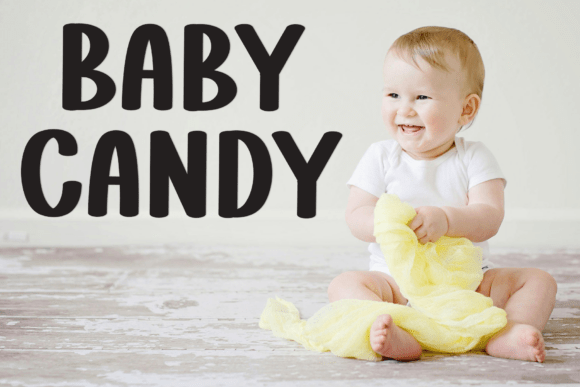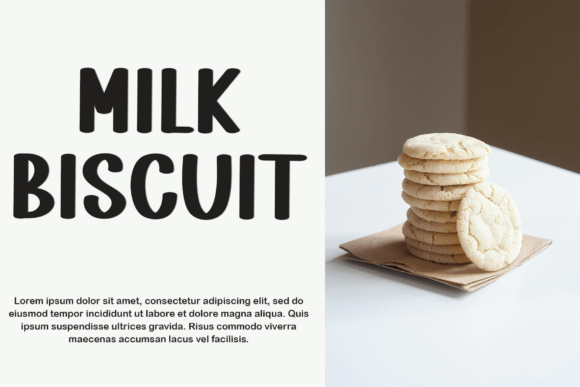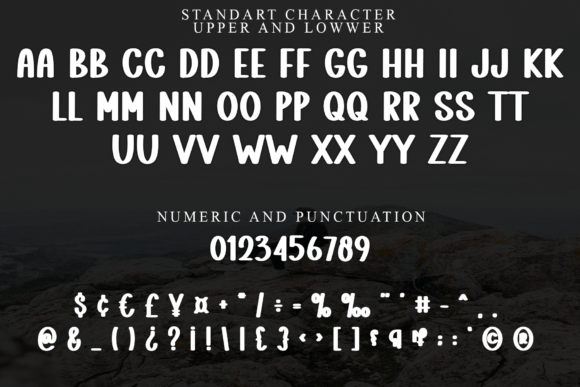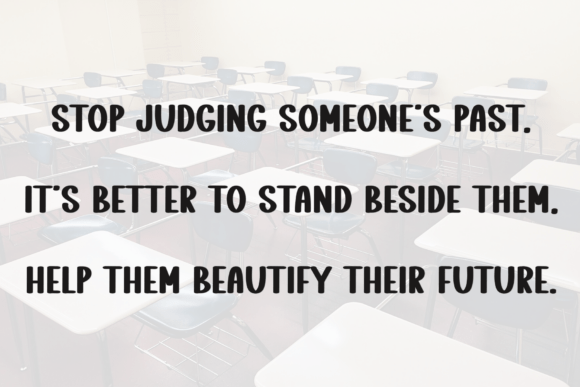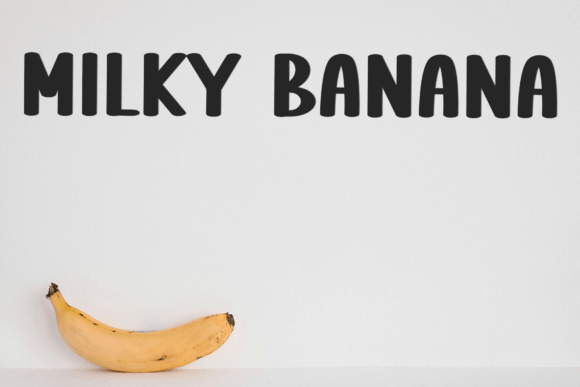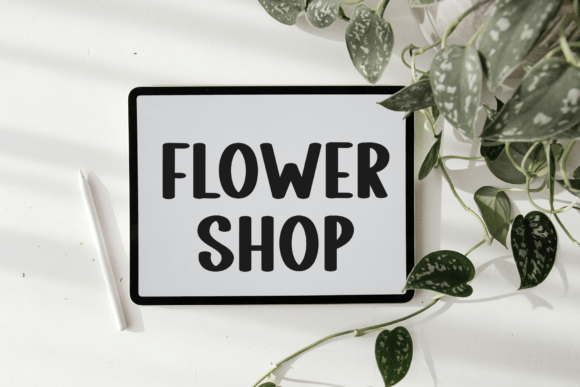
Introduction to Monday Lacation Font
As a designer, have you ever found yourself in a creative rut, struggling to find the perfect font to match your vision? I know I have. But one day, while browsing through a design resource website, I stumbled upon a charming font that changed everything. The Monday Lacation Font, with its playful and approachable feel, instantly captured my attention and sparked a wave of inspiration. Its hand-drawn aesthetic and rounded strokes transported me to a world of endless possibilities, where creativity knew no bounds.
With its ability to add a unique touch to any design, the Monday Lacation Font is a valuable resource for designers of all levels. Whether you’re working on a personal project, creating social media graphics, or designing invitations, this font is sure to bring a smile to your audience’s faces. And the best part? It’s available for free download, making it an accessible and high-quality addition to your design toolkit.
As a design enthusiast, I can attest to the importance of having a reliable and versatile font at your disposal. The Monday Lacation Font, with its transparent background and PUA Encoded glyphs, is the perfect companion for any creative project. So why settle for ordinary when you can have extraordinary? Get ready to unleash your creativity with the Monday Lacation Font!
Key Features of Monday Lacation Font
- Unique, modern font style with a transparent background, allowing for versatility in design applications.
- Perfect for use in logos, branding materials, and other creative projects where a modern, minimalist aesthetic is desired.
Honest Review: Monday Lacation Font
As a designer, I’m always on the lookout for high-quality design resources to elevate my creative projects. Recently, I stumbled upon the Monday Lacation Font, and I’m excited to share my thoughts on this free download.
- ✨ Clean and modern design aesthetic that’s perfect for minimalist layouts.
- ✨ High-quality vector files that can be scaled up or down without losing any detail.
- ✨ Transparent background option, making it easy to layer over images or use as a standalone element.
- ⚠️ Limited character set, which might be a concern for designers who need a wide range of characters.
- ⚠️ Not ideal for projects that require a lot of bold or condensed typography.
Overall, I’m impressed with the Monday Lacation Font. Its clean design and high-quality files make it a great addition to any designer’s toolkit. While it may have some limitations, I think it’s a fantastic choice for designers working on minimalist or modern creative projects.
Monday Lacation Font
The Monday Lacation Font is a versatile design resource ideal for creative projects. It offers a high-quality, unique aesthetic that can elevate your visual content.
Using the Monday Lacation Font
Combine the Monday Lacation Font with a transparent background to create a stunning visual effect. Experiment with different font sizes, colors, and arrangements to achieve the desired look.
The Monday Lacation Font is ideal for a variety of creative projects, including blog posts, social media graphics, presentations, and more. Its unique aesthetic makes it perfect for brands looking to stand out in a crowded market.